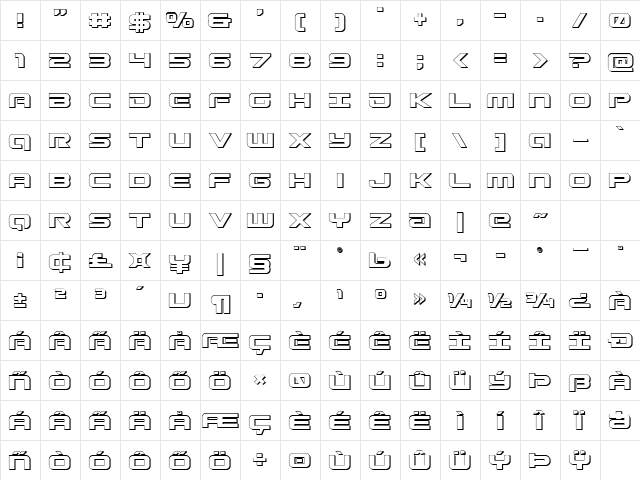
Gunship 3D Regular
Design Context for Gunship 3D
Gunship 3D is a composed and adaptable typeface that performs quietly and consistently across a wide range of design contexts.